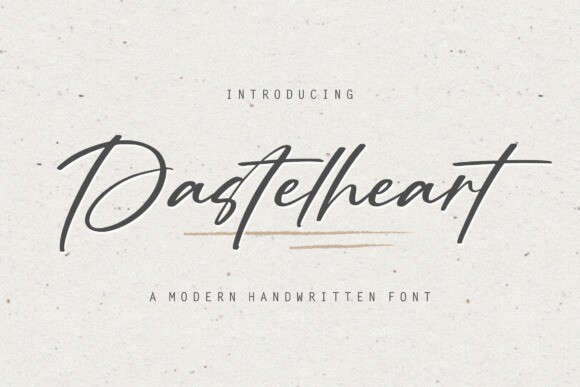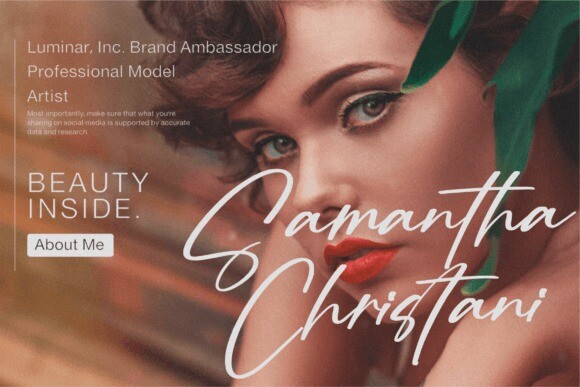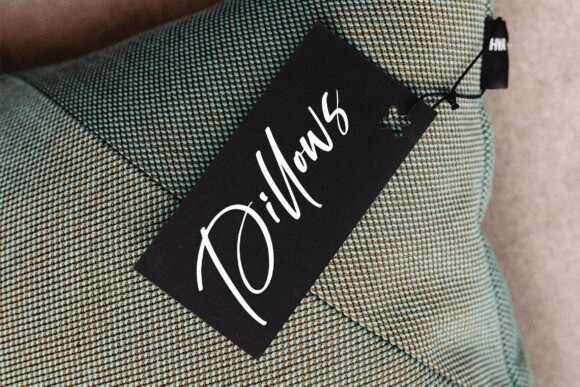
Pastelheart Font
Pastelheart is a Modern Handwritten Font
Pastelheart is perfect for product packaging, branding project, megazine, social media, wedding, or just used to express words above the background.